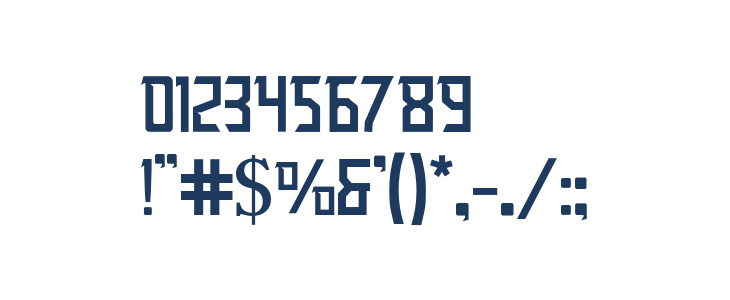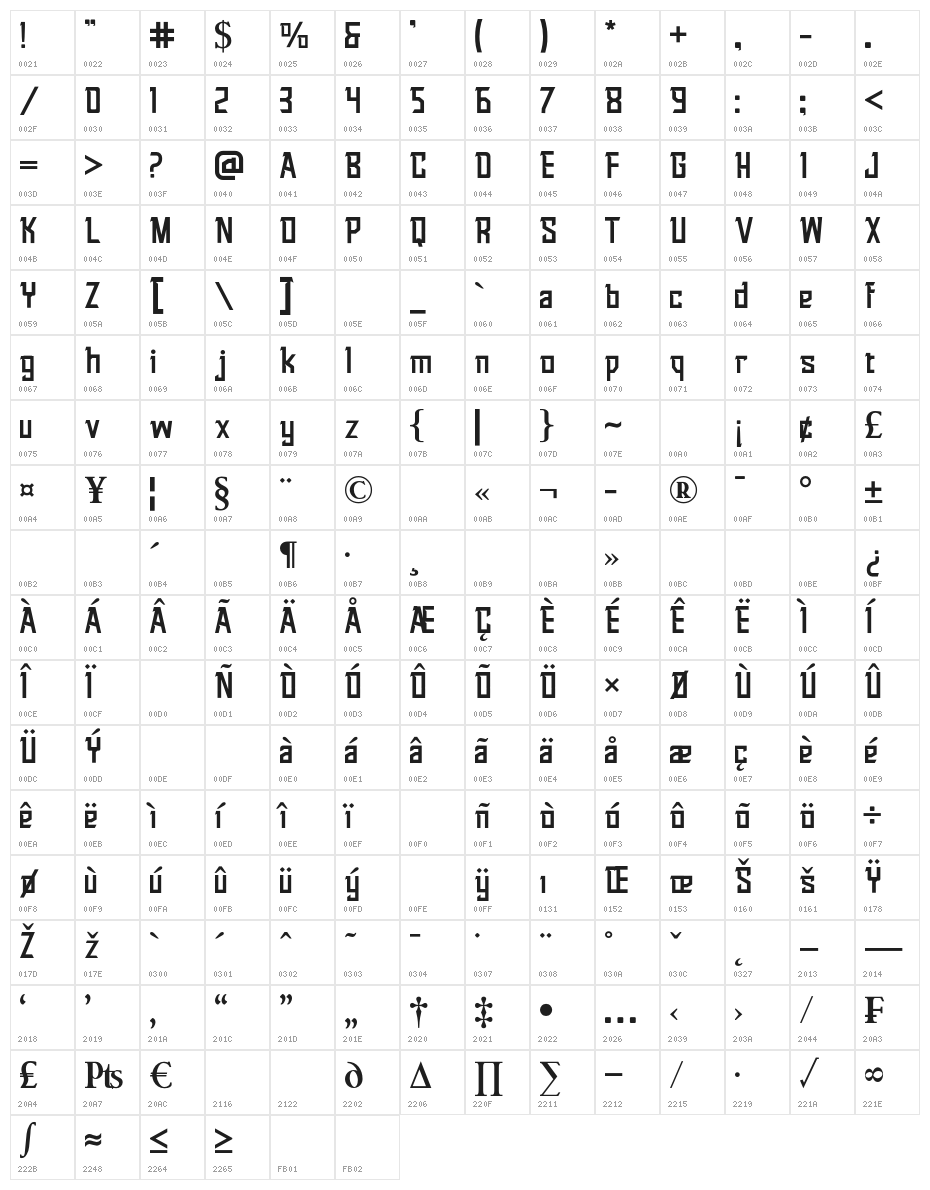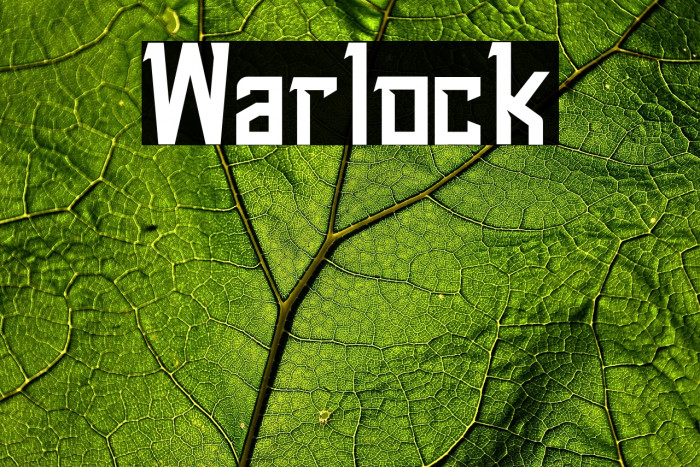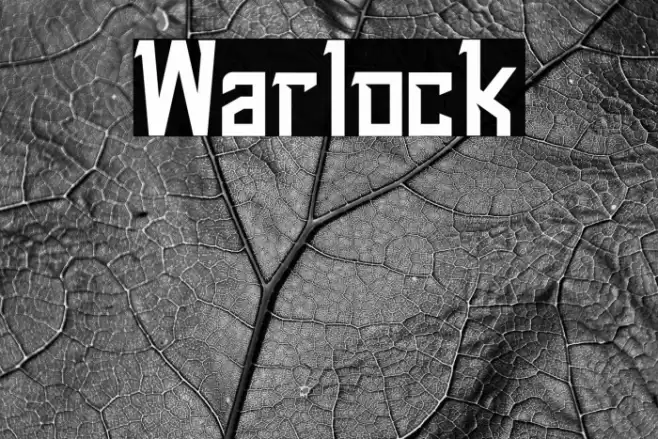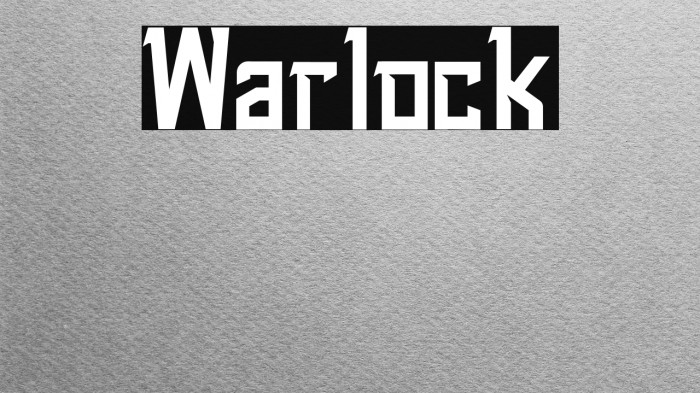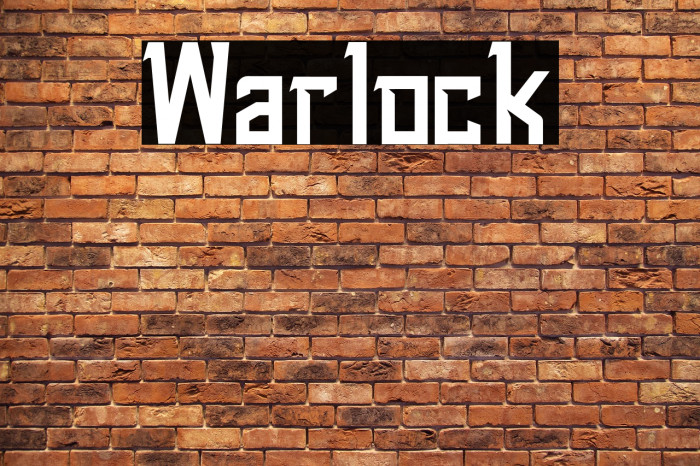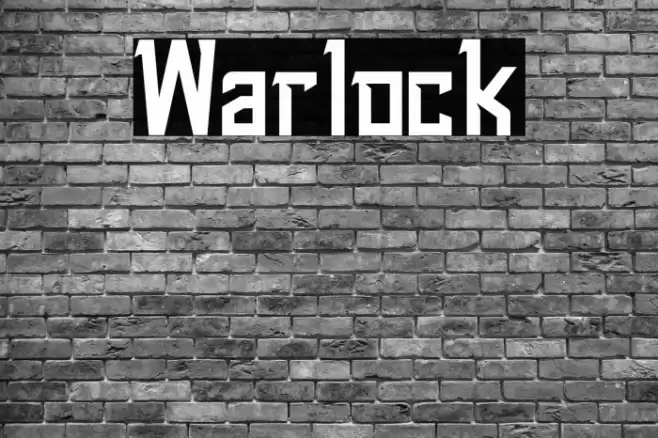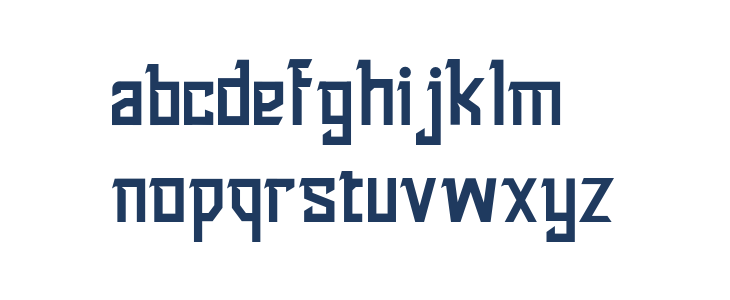
Warlock Font
Warlock Description
This font features a bold and angular design, characterized by sharp edges and a geometric structure. The uppercase and lowercase letters maintain a consistent style, with a strong emphasis on vertical and horizontal lines. The numerals and special characters follow the same angular theme, providing a cohesive look across all characters. The font's unique style makes it stand out, offering a modern yet slightly retro feel, reminiscent of digital or sci-fi aesthetics. Its boldness ensures high visibility, making it suitable for impactful designs.
| Proposed Projects | Ideal for video game titles, sci-fi movie posters, tech company logos, and futuristic branding projects. |